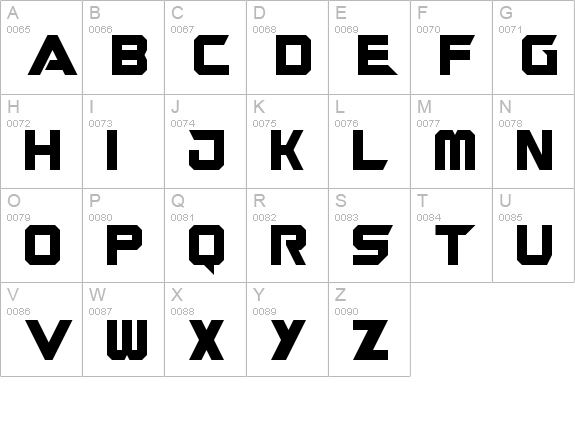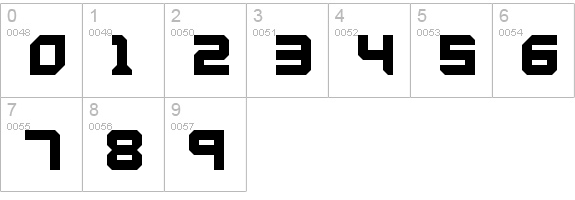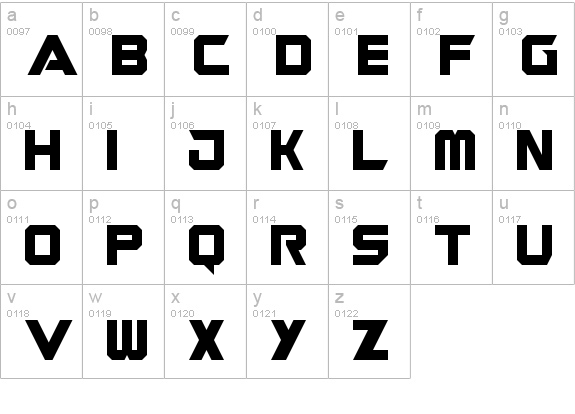
Guardians Regular Font Details
Guardians Regular is the standard, neutral variant in the Guardians typeface family \xE2\x80\x94 well suited to general body text, paragraphs, and standard typographic work.
Guardians Regular font is a stunning display typeface that exudes a sense of strength and stability. Its bold and robust letterforms make it an ideal choice for headlines, banners, and logo designs. With its clean lines and modern aesthetic, Guardians Regular font adds a touch of sophistication to any project. What sets Guardians Regular font apart is not just its impeccable design, but also its availability as a free download. Yes, you read that right! This incredible font is freely available to download at FontsMarket.com. Now, you can enhance your creative endeavors without breaking the bank. Whether you are a professional designer looking to add a unique touch to your work or an enthusiast seeking to make a statement with your personal projects, Guardians Regular font is the perfect choice. Its versatility and readability ensure that your message will be conveyed with clarity and impact. The attention to detail in Guardians Regular font is truly remarkable. Each letter has been meticulously crafted, resulting in a harmonious and balanced typeface that captivates the eye. Its generous x-height and well-proportioned glyphs contribute to its legibility, making it an excellent option for both print and digital media. With Guardians Regular font, your designs will stand out from the crowd. Its bold and commanding presence demands attention, while its subtle nuances and refined curves add an element of elegance. Whether you are designing a poster, a website, or even a book cover, this font will elevate your project to new heights. Don't miss out on the opportunity to download Guardians Regular font for free at FontsMarket.com. Take advantage of this amazing offer and unleash your creativity. Transform your designs with a font that combines strength and style seamlessly.